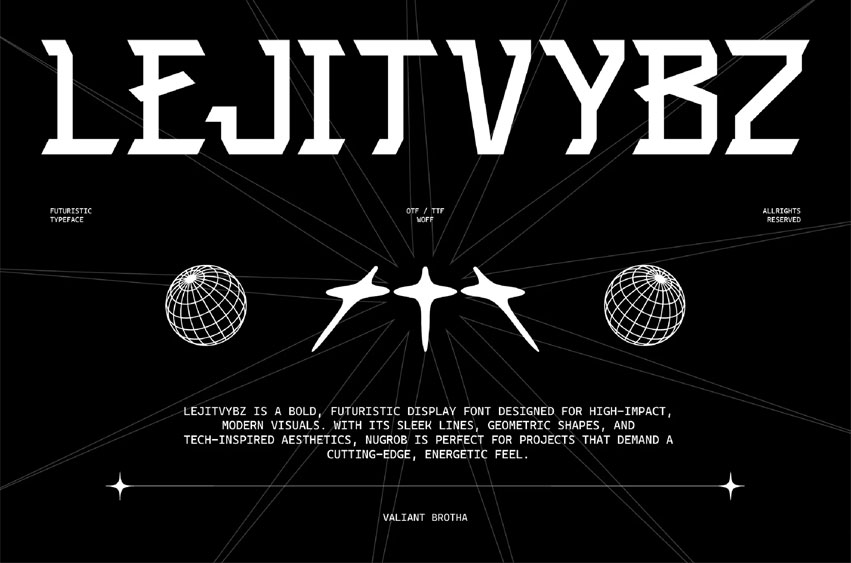
LejitVybz Font Urban Futuristic Style font LejitVybz is a bold, futuristic display font designed for high-impact, modern visuals.
With its sleek lines, geometric shapes, and tech-inspired aesthetics, Nugrob is perfect for projects that demand a cutting-edge, energetic feel.